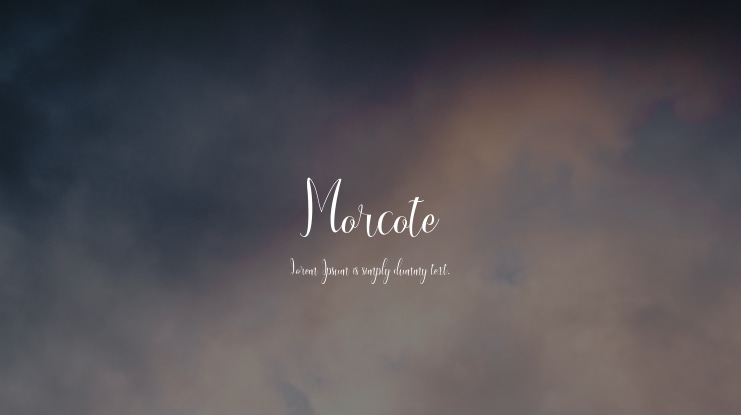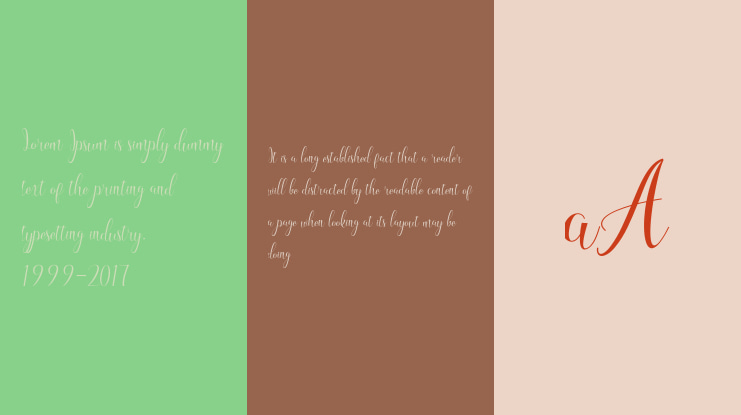
Morcote Font
Introducing Morcote - Handwritten Font
This Font can be used for any variety of purposes, such as:
Event, Birthday, Ceremony, Packaging Products, Logo Type, Branding, T-Shirt Design, Website/Blog, Headline Magazine, Brochures and also can be used for other purpose.
This Font Template contains Elegance, Handwriting, Flourish, Creative, Professional and Unique Concept.